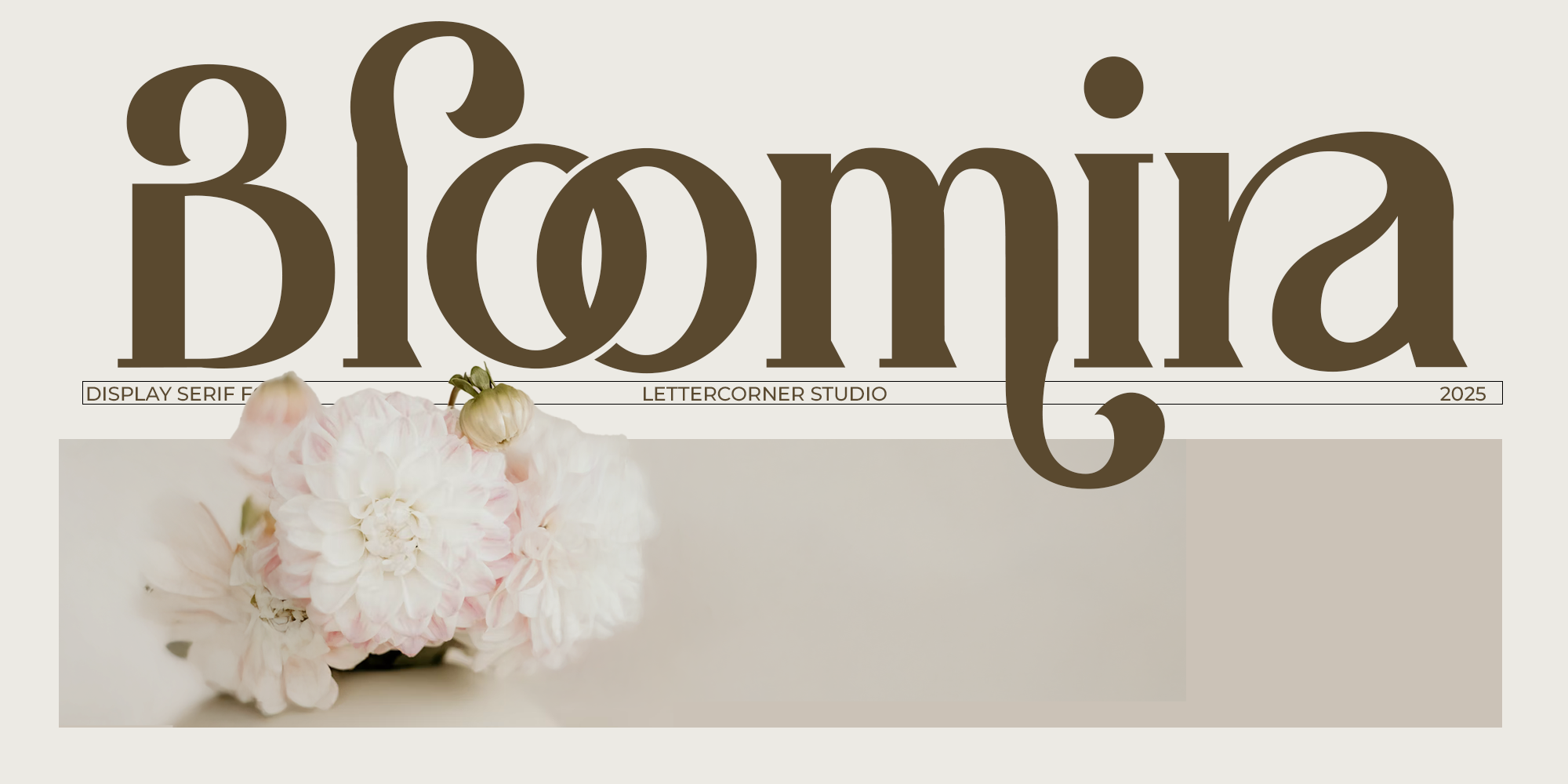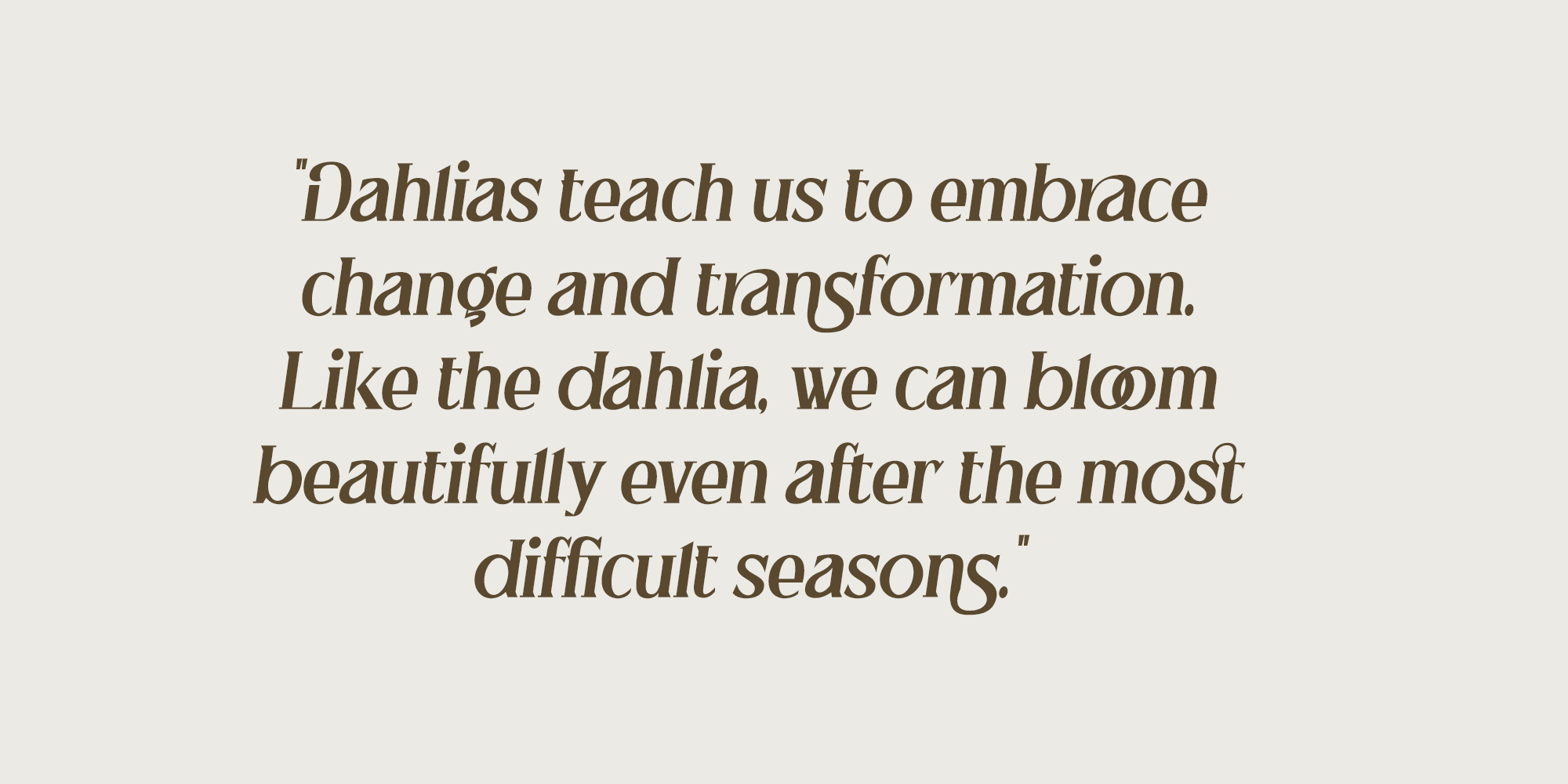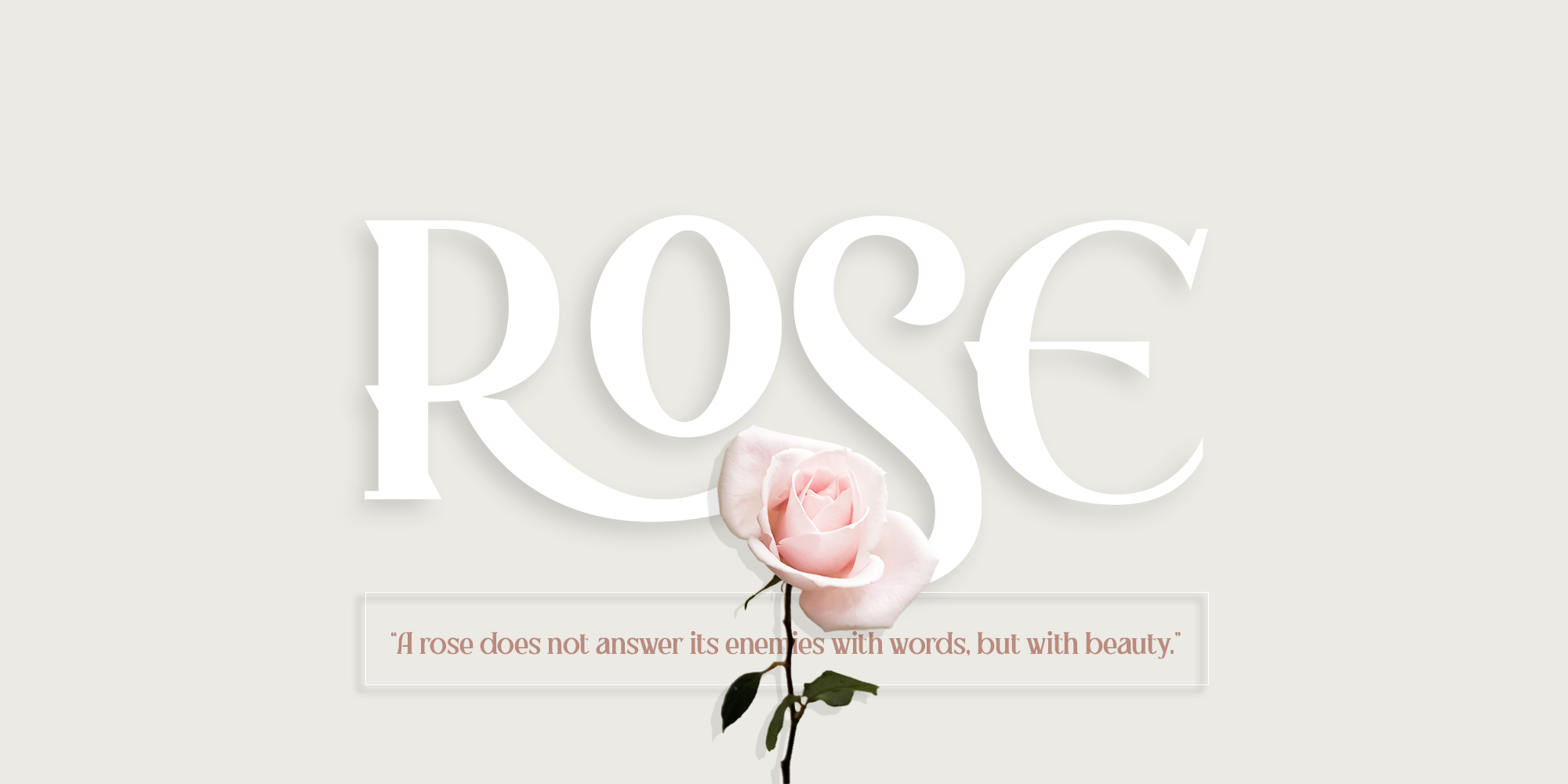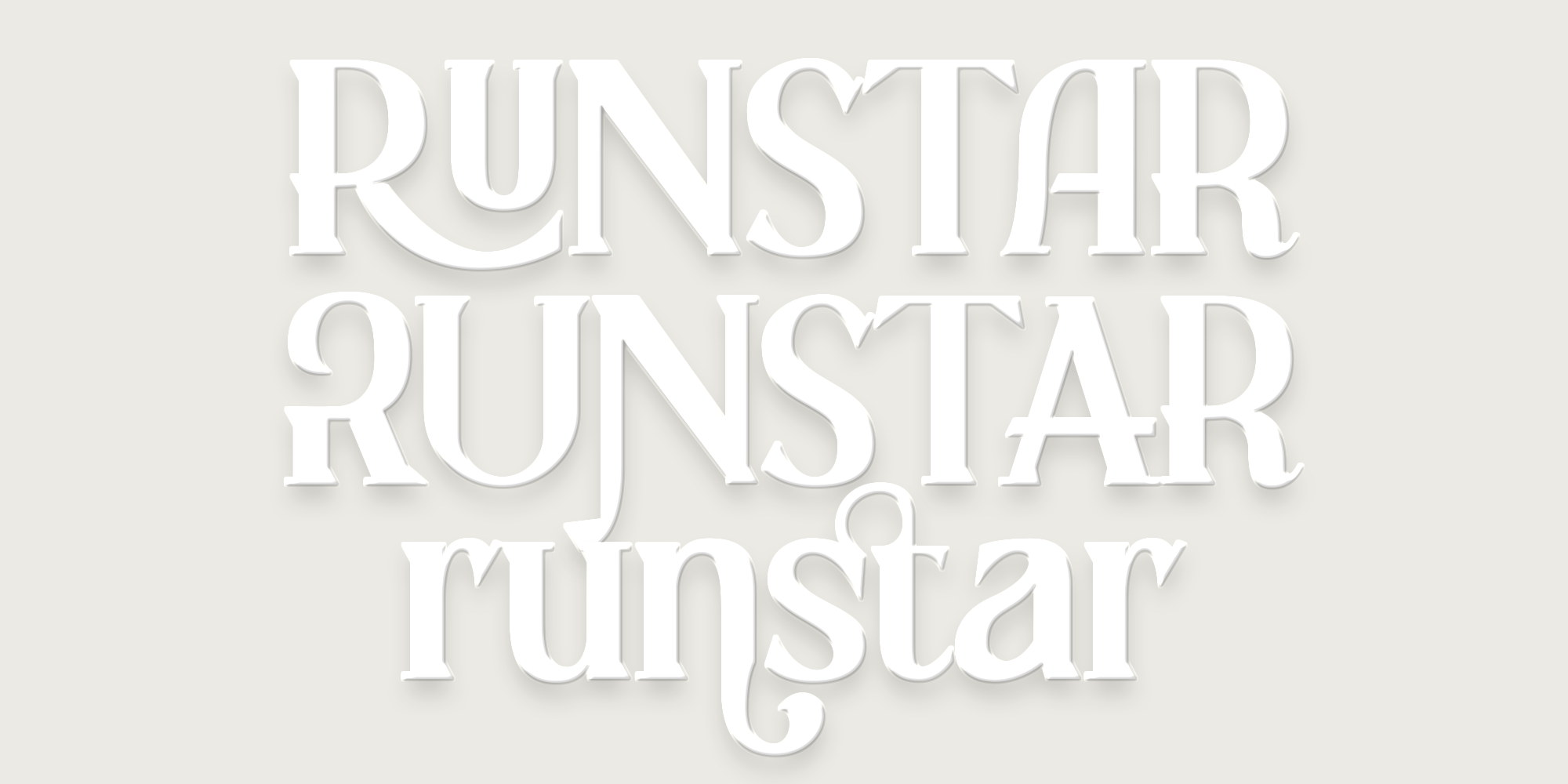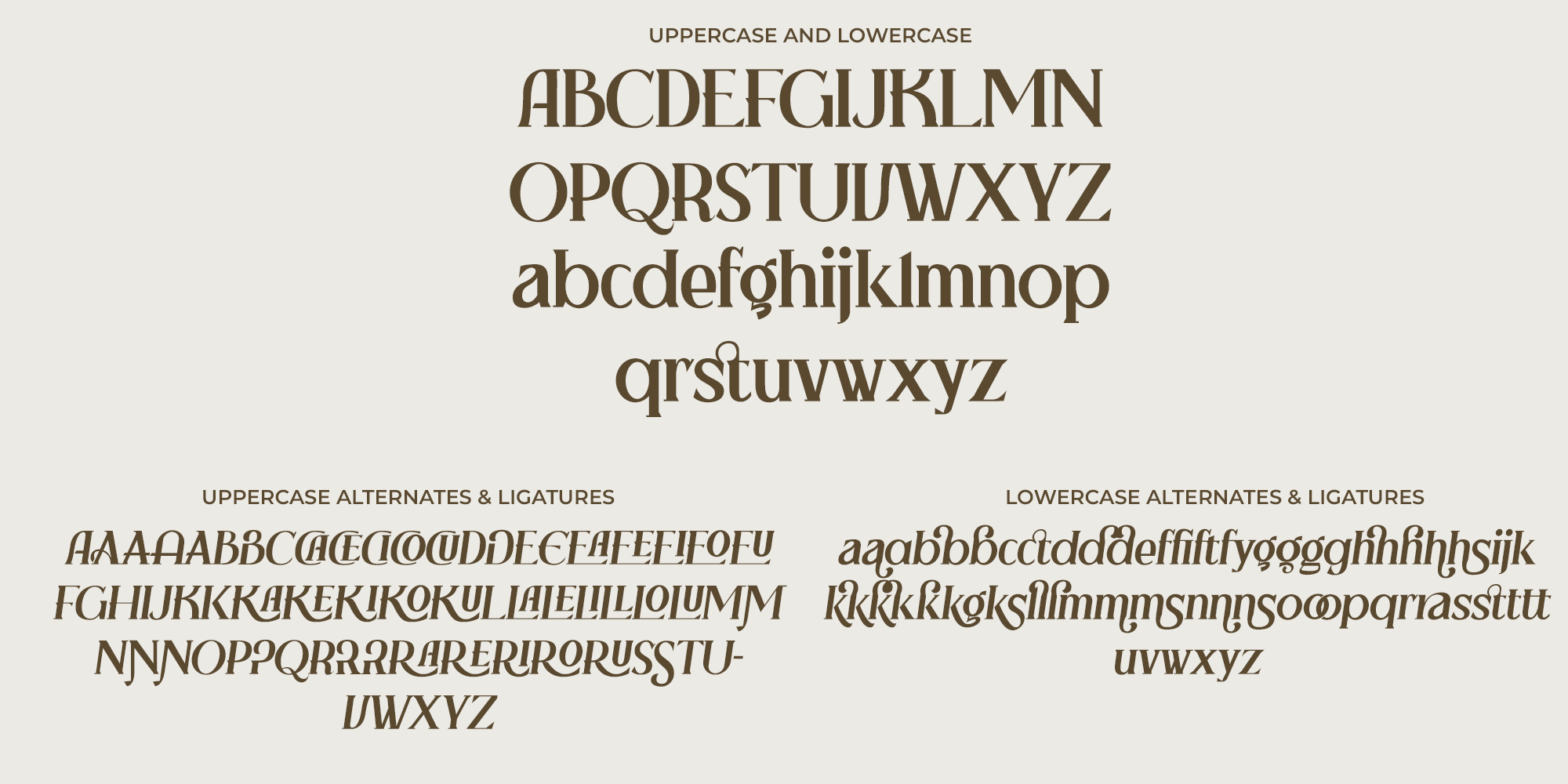
A classic serif typeface designed to evoke timeless beauty and quiet sophistication.
Inspired by vintage editorial design and botanical grace, Bloomira features delicate serifs, elegant contrast, and refined proportions — perfect for high-end branding, book covers, fashion editorials, and elegant packaging.
From bold headlines to graceful body text, Bloomira adds a touch of heritage and harmony to any design it graces.
Not just a font — it’s a refined voice with roots in tradition and eyes on timeless elegance.